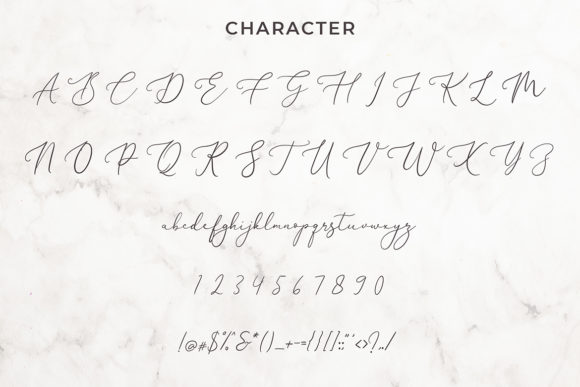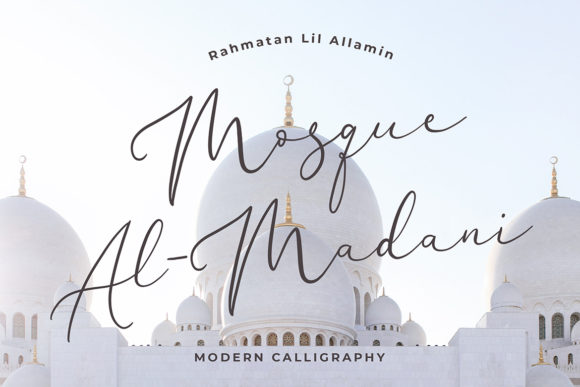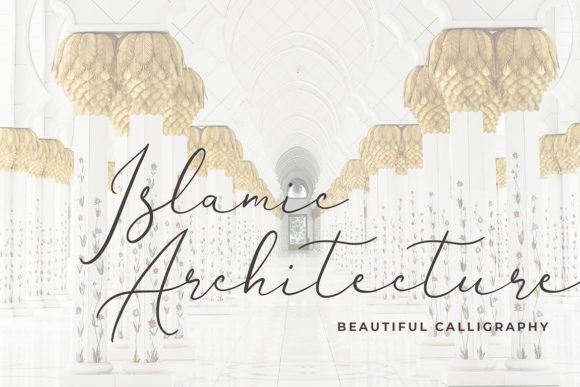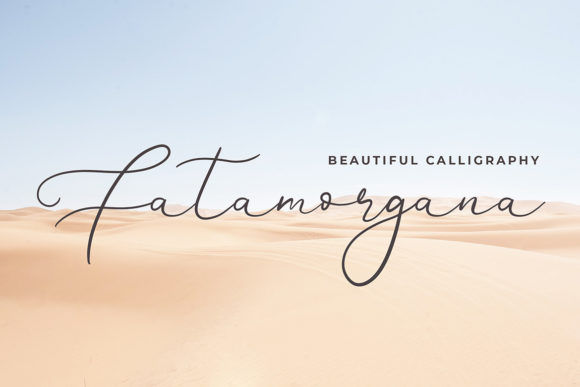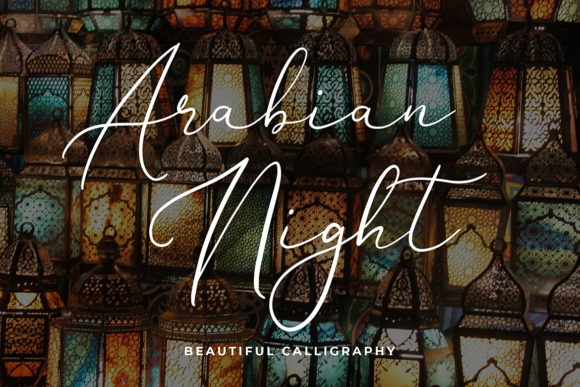
The Elegance of Brianna Qasim Font: A Designer’s Delight
I’ll never forget the time I was working on a wedding invitation design project, and my client specifically asked for a font that exuded elegance and sophistication. I scoured the internet, tried out countless fonts, but nothing seemed quite right. That was until I stumbled upon Brianna Qasim Font. It was love at first sight! 💕 The beautiful calligraphy style and unique flair of this font instantly captured my attention, and I knew I had found the perfect fit for my project.
An Honest Review of Brianna Qasim Font
• ✨ Beautiful calligraphy style with a unique flair
• ✅ Perfect for adding a touch of elegance to any design project
• 💫 Works well for both digital and print designs
• 🎨 Highly versatile and can be used for a variety of design applications, from wedding invitations to branding and packaging
While Brianna Qasim Font is an amazing font, there are a few things to keep in mind. 🤔
• ⚠️ Some characters may not work well in smaller font sizes, so it’s best to use it at larger sizes (24pt or larger) for optimal results.
• ⚠️ The font may not be suitable for body text, as it’s more designed for headlines and titles.
The Story Behind Brianna Qasim Font
Brianna Qasim Font was designed by a talented type designer who’s passionate about creating beautiful, unique fonts. The font is inspired by the art of calligraphy and the beauty of handwritten script. 💫 The designer wanted to create a font that would add a touch of elegance and sophistication to any design project, and Brianna Qasim Font certainly delivers.
Q: What type of designs is Brianna Qasim Font best suited for?
A: Brianna Qasim Font is perfect for designs that require a touch of elegance and sophistication, such as wedding invitations, branding, packaging, and digital designs.
Q: Is Brianna Qasim Font available in different languages?
A: Yes, Brianna Qasim Font supports multiple languages, including English, Spanish, French, and more. However, please check the font documentation to confirm the languages supported.